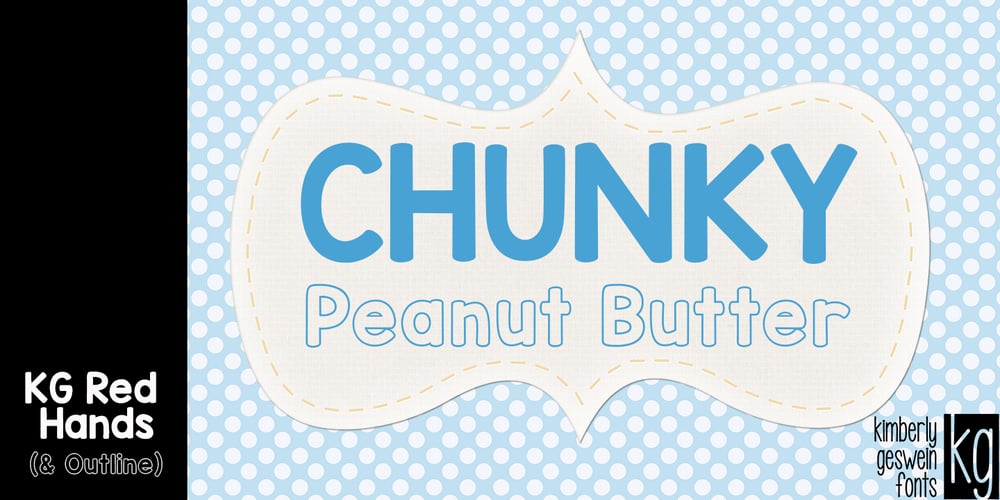
KG Red Hands
KG Red Hands font
KG Red Hands Font Family was designed by Kimberly Geswein and published by Kimberly Geswein. KG Red Hands contains 2 styles and family package options. A chunky fat font perfect for titles. Still neat and legible while being super chunky.